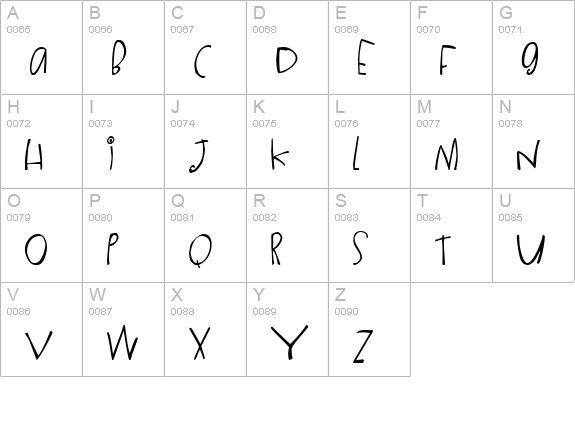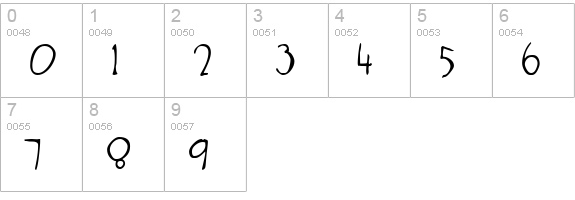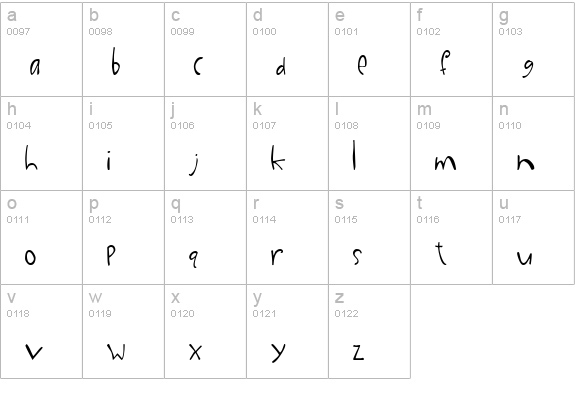
2Peas DW Ups and Downs Font Details
2Peas DW Ups and Downs font is a whimsical and playful typeface that exudes a sense of fun and creativity. With its unique hand-drawn style, this font is perfect for adding a touch of charm to your designs. The varying heights of the letters give it a dynamic and energetic feel, making it ideal for projects that require a lively and engaging look. Best of all, 2Peas DW Ups and Downs font is available for free download at FontsMarket.com. Whether you're working on a poster, invitation, or any other creative project, this font is sure to add a cheerful and delightful touch. So why not give your designs a lift with 2Peas DW Ups and Downs font today? Download it for free and let your creativity soar!